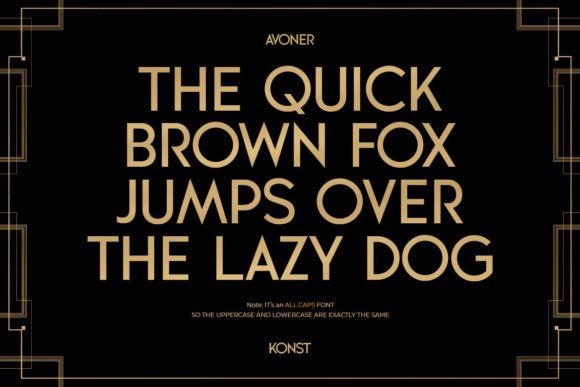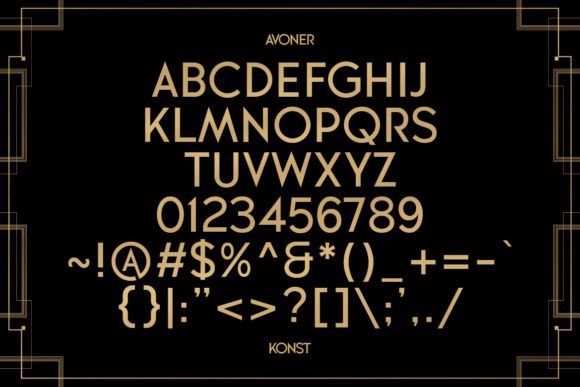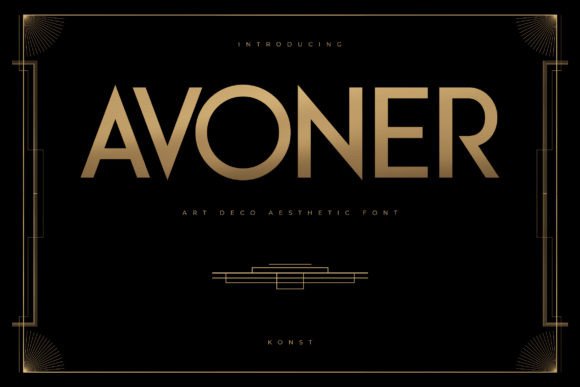
Introducing Avoner Font: The Epitome of Luxury Art Deco
In the realm of typography, few fonts capture the essence of luxury and sophistication as elegantly as Avoner Font. Inspired by the visually stunning era of the 1930s, Avoner is an art deco font that embodies the glamour of a bygone age, perfect for designers and crafters looking to infuse their projects with a touch of high-end class.
The Inspiration Behind Avoner
The 1930s was an era marked by opulence and extravagance, particularly in the realms of advertising and visual arts. This period saw the rise of art deco, a style that celebrated modernity, luxury, and a streamlined aesthetic. Avoner Font draws its inspiration from this iconic era, meticulously crafted to reflect the geometric shapes, clean lines, and ornate details characteristic of art deco.
Characteristics of Avoner Font
Avoner is not just any font; it’s an all-caps font, meaning that both uppercase and lowercase letters appear the same, maintaining a consistent and majestic appearance across all texts. This feature is particularly advantageous for creating titles, headings, and any text that demands prominence and uniformity.
The font’s design is deeply rooted in the art deco tradition, featuring:
- Geometric Shapes: Inspired by the era’s architectural and design trends, Avoner incorporates geometric shapes that lend it a modern yet vintage appeal.
- Clean Lines: The font boasts clean and precise lines, contributing to its luxurious and sophisticated look.
- Ornate Details: With intricate details and decorative elements, Avoner adds a touch of elegance and refinement to any project.
Perfect for High-End Projects
Avoner Font is exceptionally suited for a variety of high-end applications, including:
- Logo and Branding: Elevate your brand’s identity with a font that exudes luxury and sophistication.
- High Fashion: Ideal for fashion brands, designers, and magazines aiming to convey a sense of glamour and style.
- Magazine and Editorial Design: Add a touch of class to your publications with a font that recalls the golden age of print.
- Jewelry, Perfume, and Makeup: Perfect for cosmetic and luxury goods branding, where standing out with elegance is key.
- Champagne and Fine Dining: For brands that wish to evoke a sense of luxury, refinement, and exclusivity.
Why Choose Avoner Font?
Choosing Avoner Font for your design projects comes with several benefits:
- Uniqueness: Stand out in a crowded market with a distinctive font that captures attention.
- Versatility: Suitable for a wide range of applications, from digital media to print.
- Timeless Appeal: Thanks to its art deco roots, Avoner possesses a timeless quality that won’t go out of style.
Avoner Font is more than just a typeface; it’s a statement of luxury, a nod to the golden era of art deco, and a tool for designers and crafters to imbue their projects with a sense of high-end sophistication. Whether you’re working on a luxury brand’s identity, a high-fashion magazine, or any project that demands elegance and refinement, Avoner is the perfect choice. Its unique blend of geometric precision, clean lines, and ornate details ensures that your work will stand out with a classy, timeless appeal.